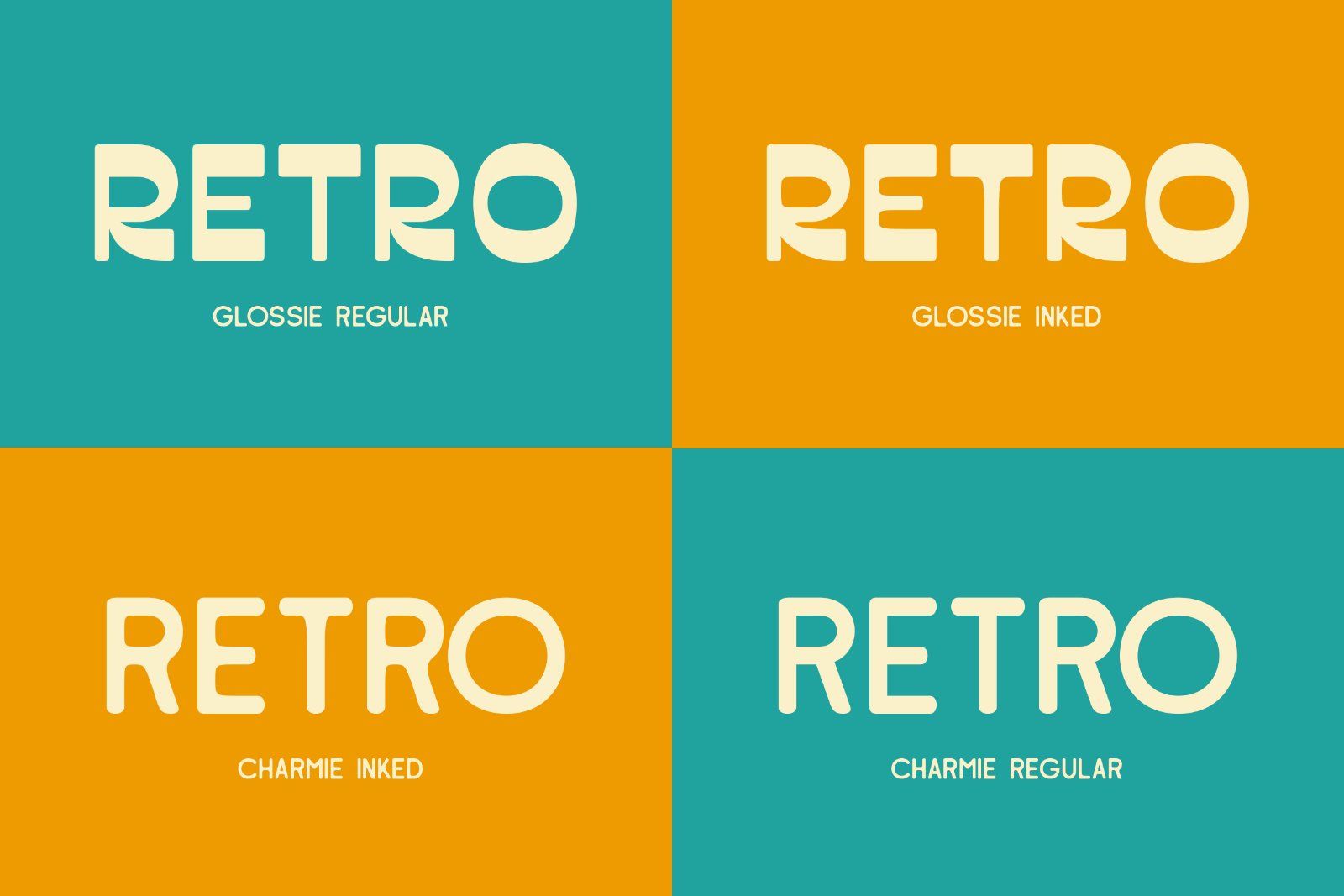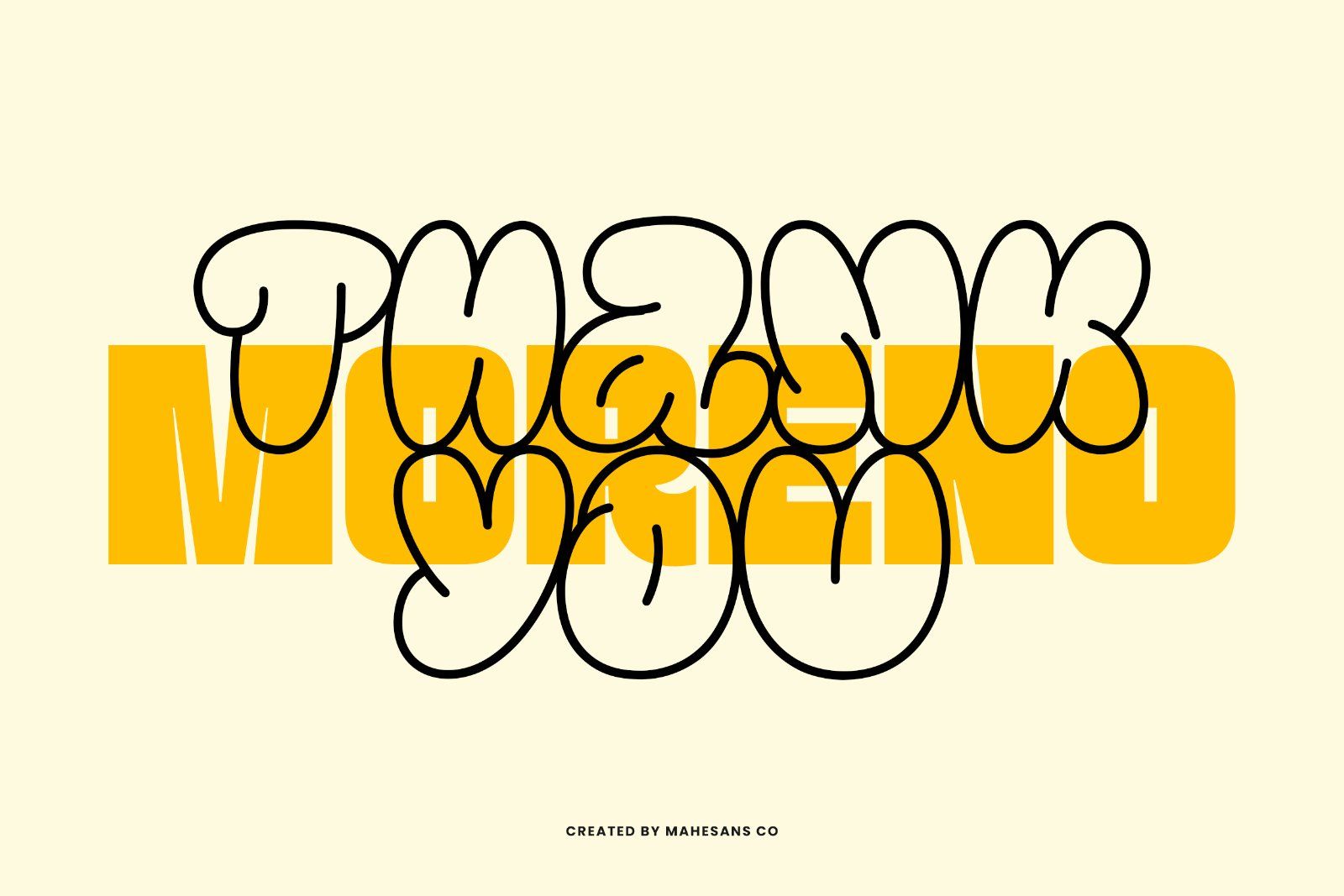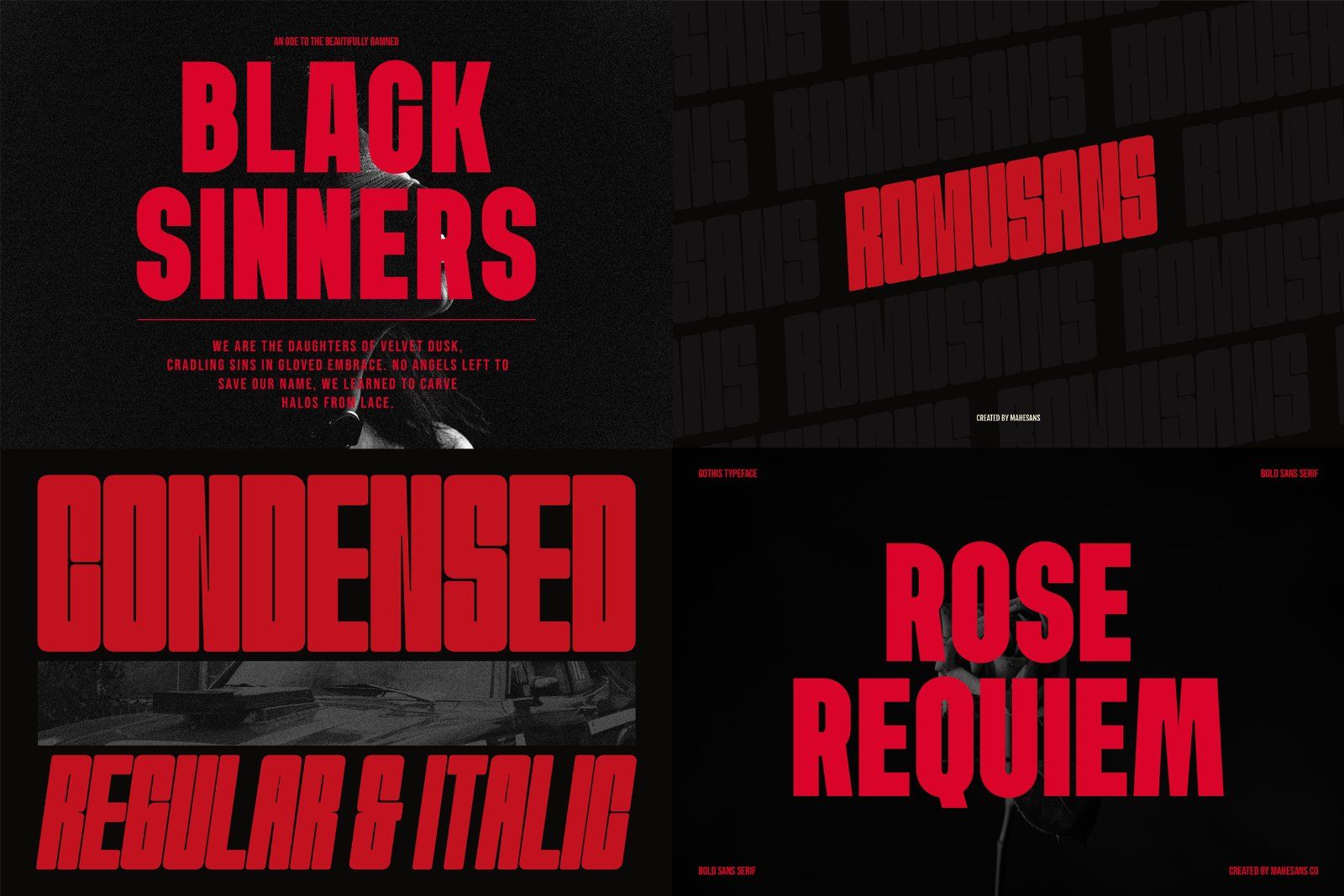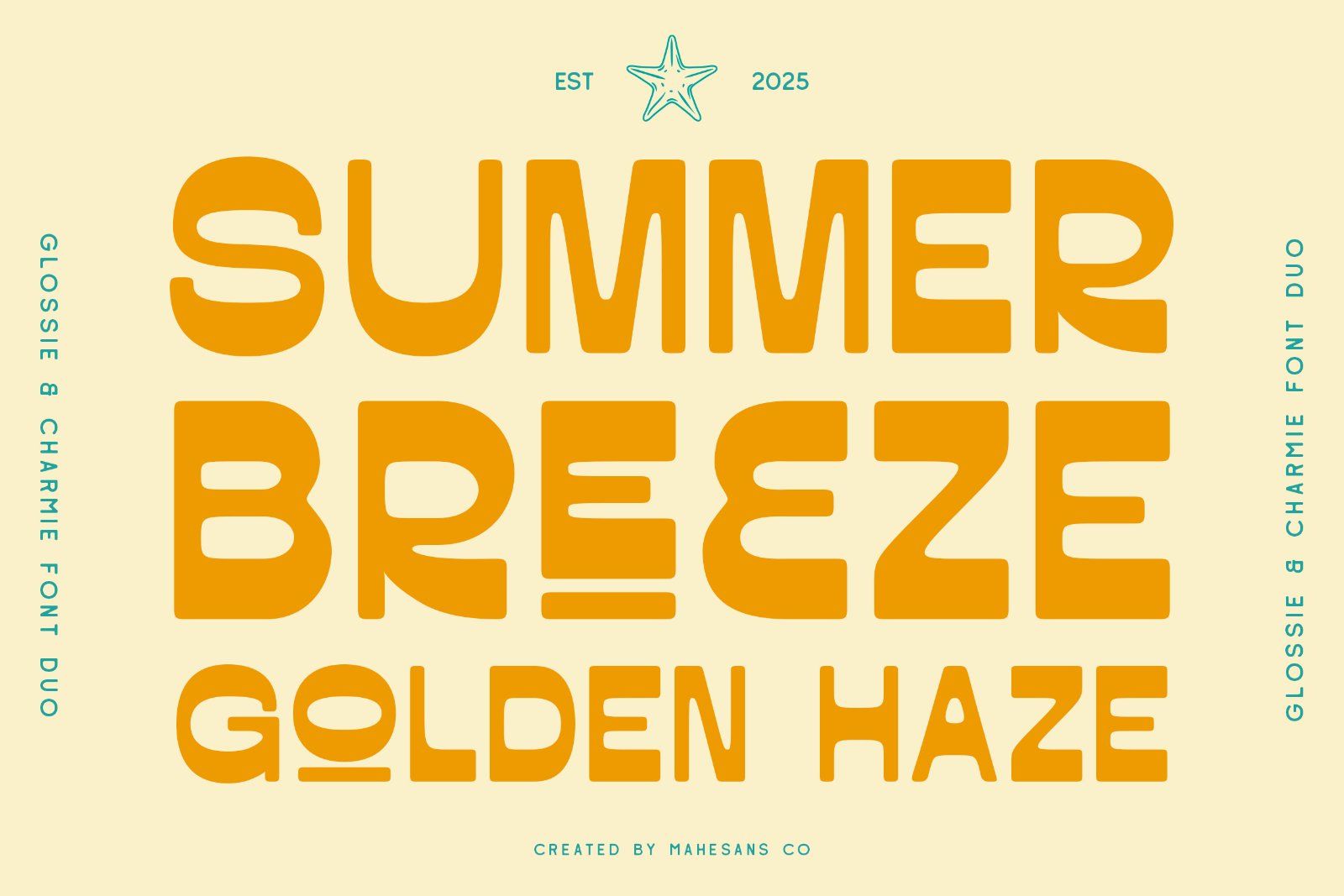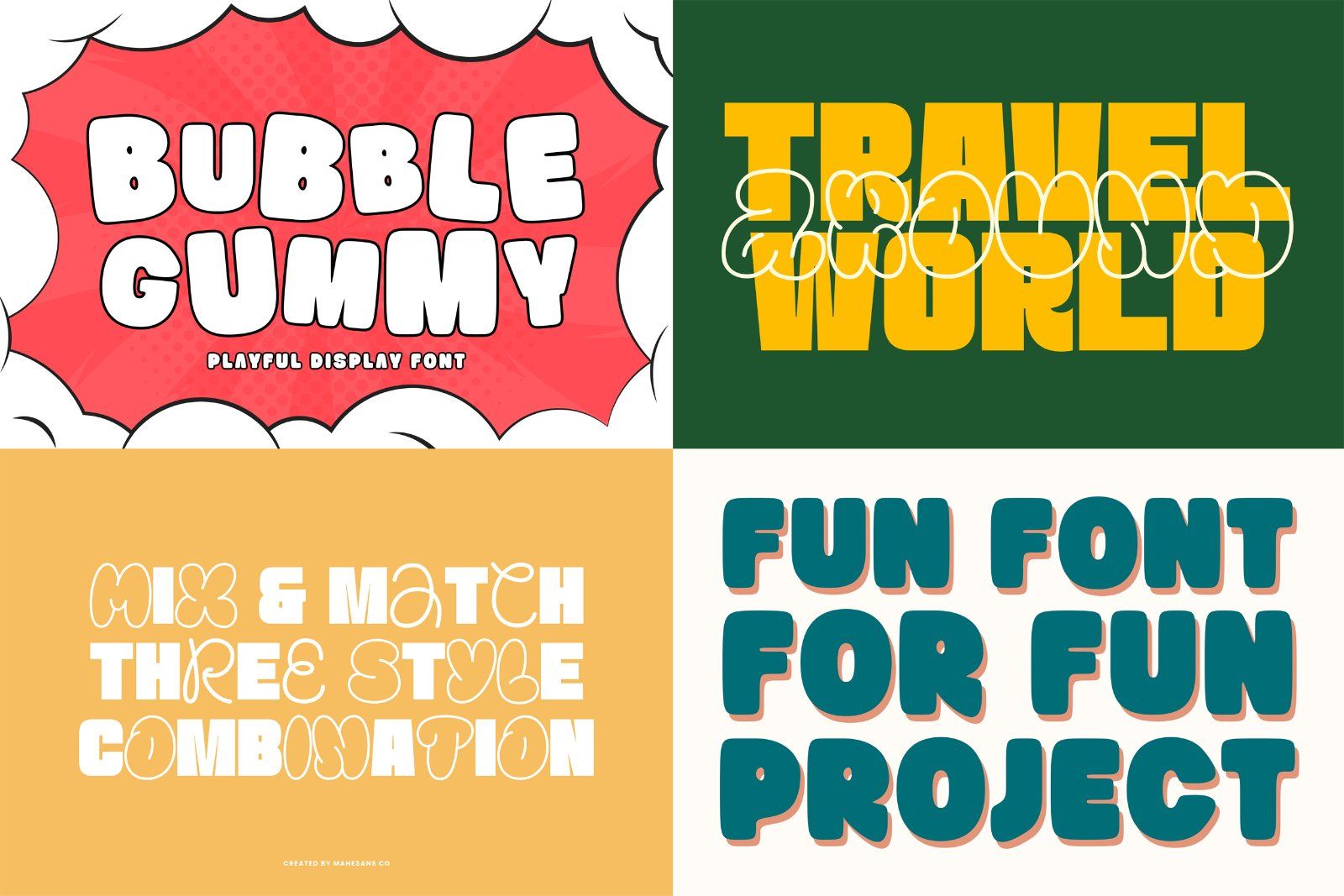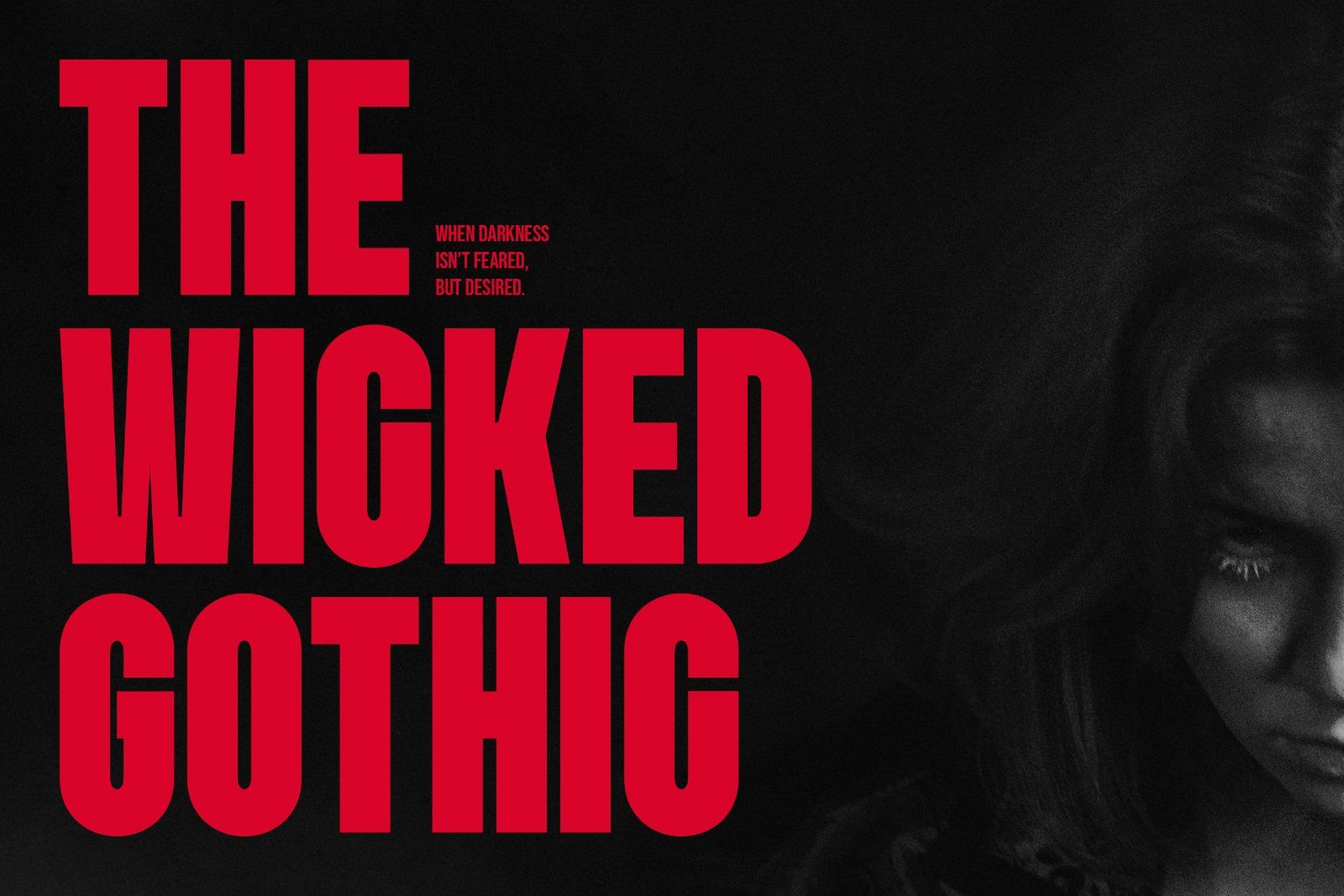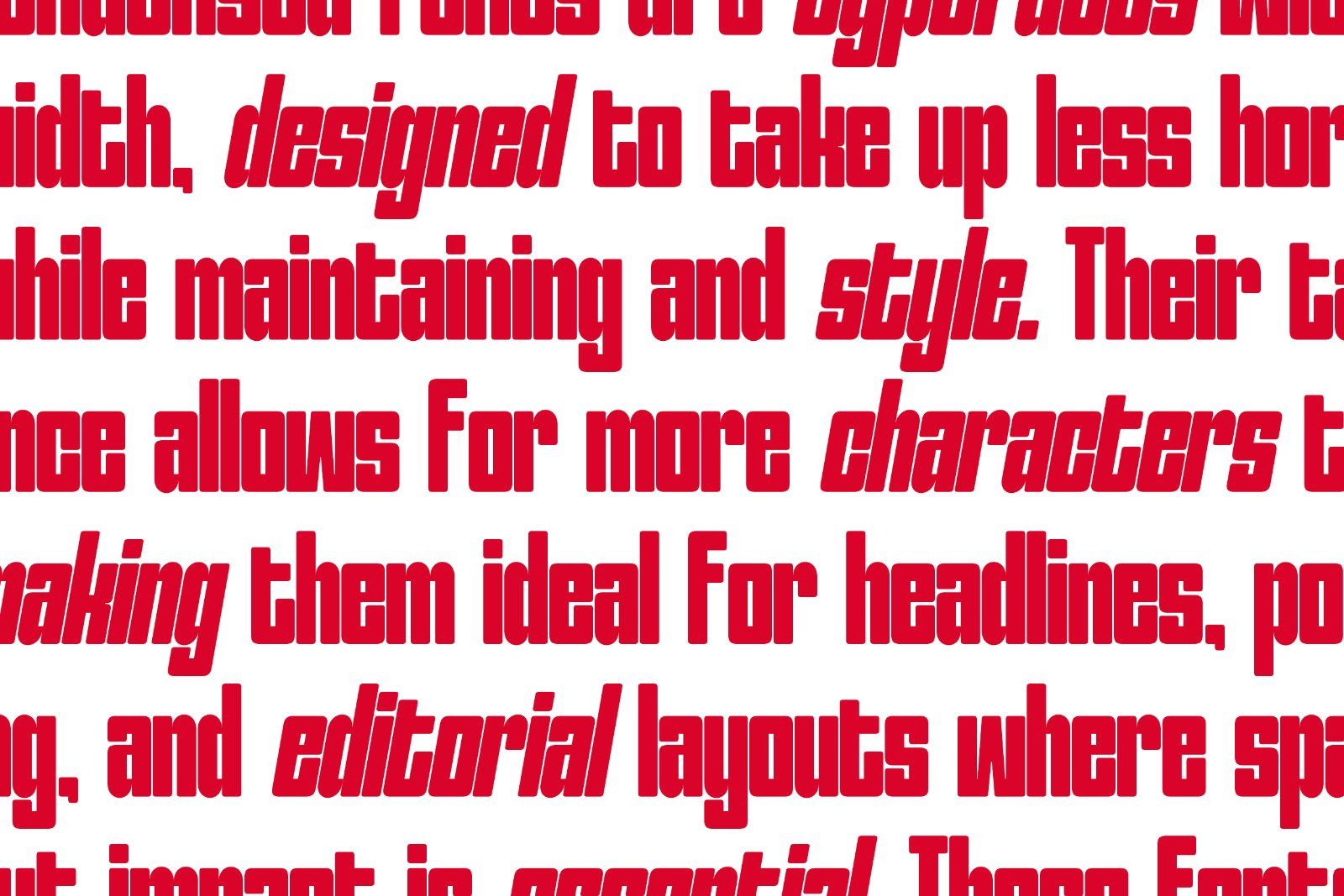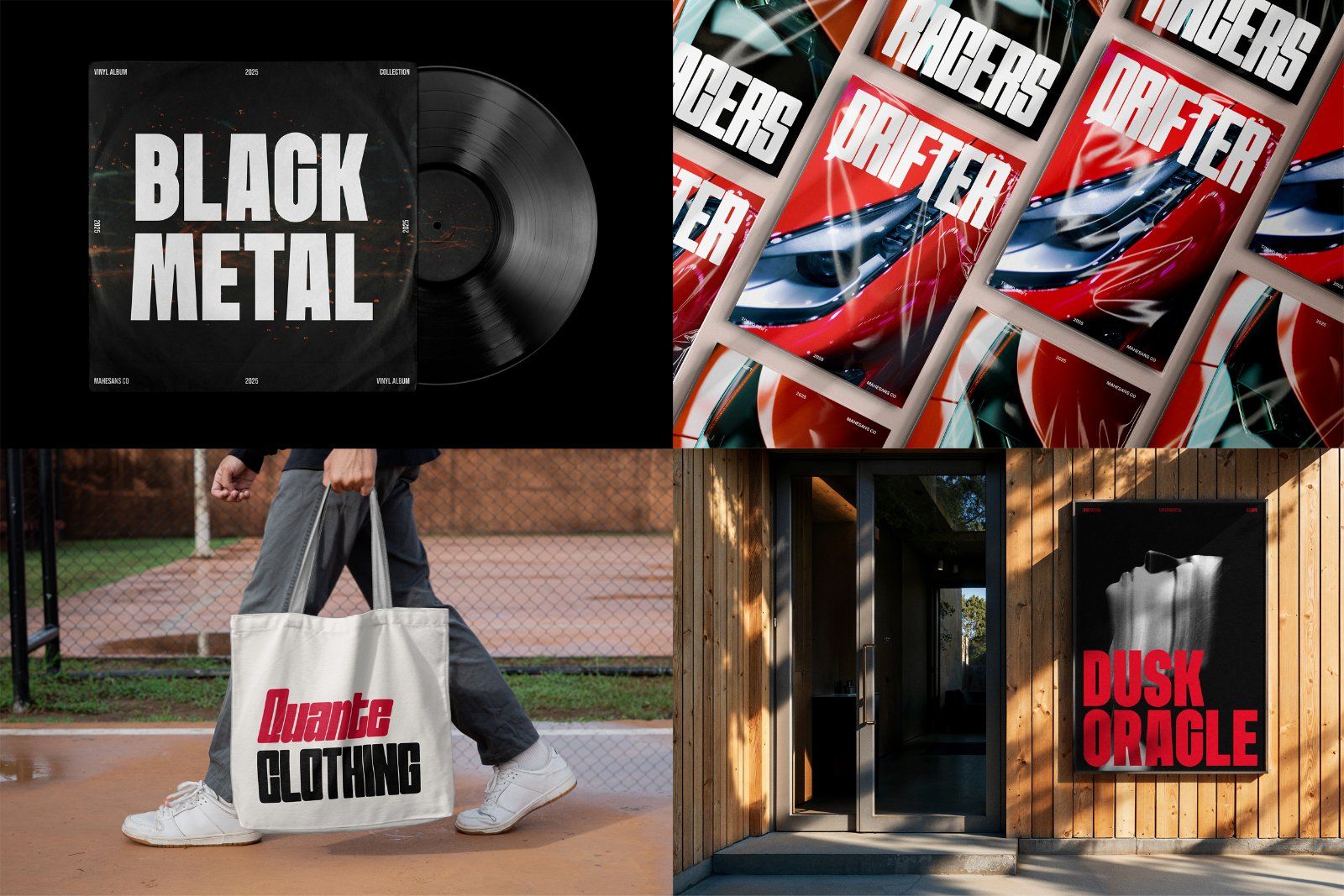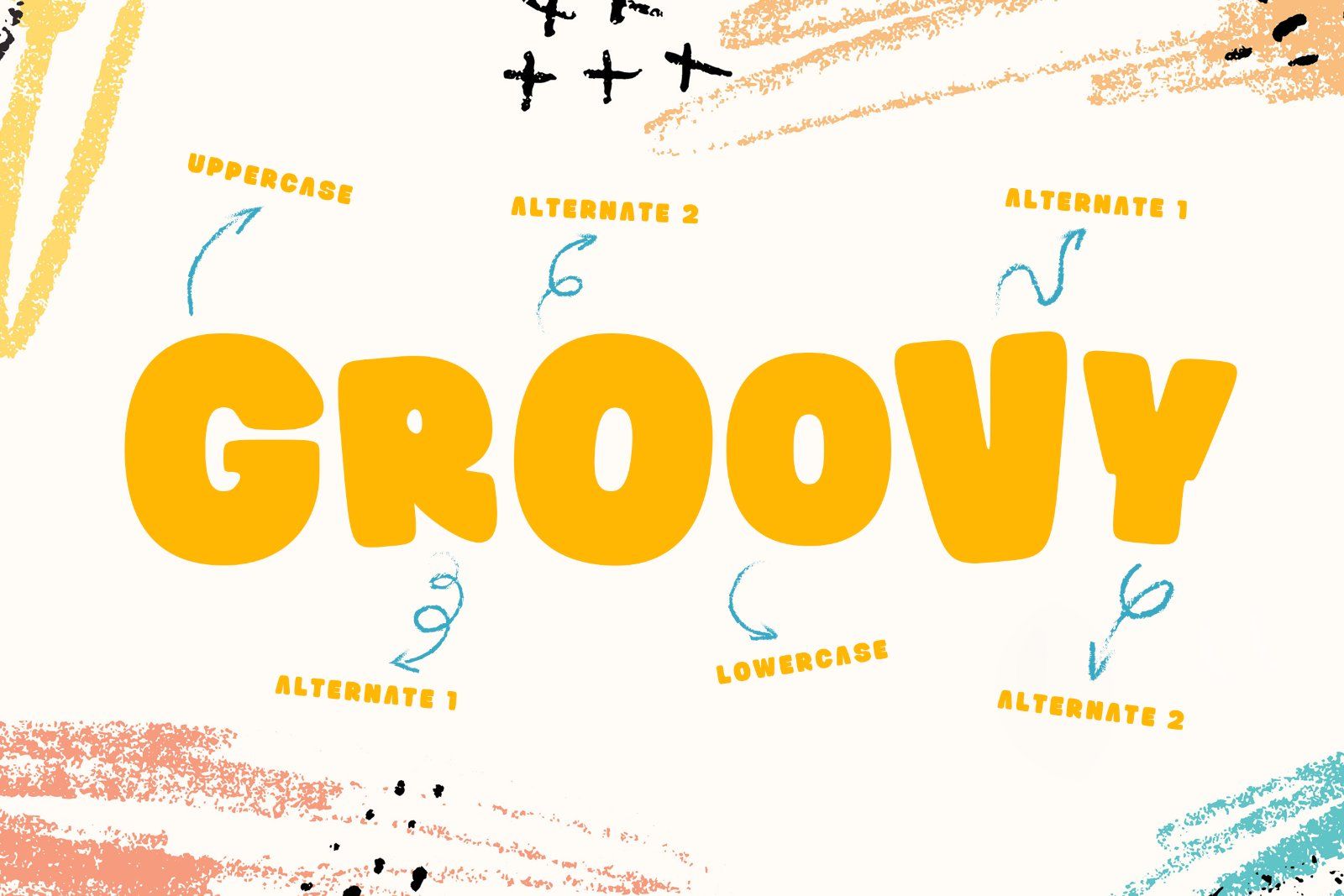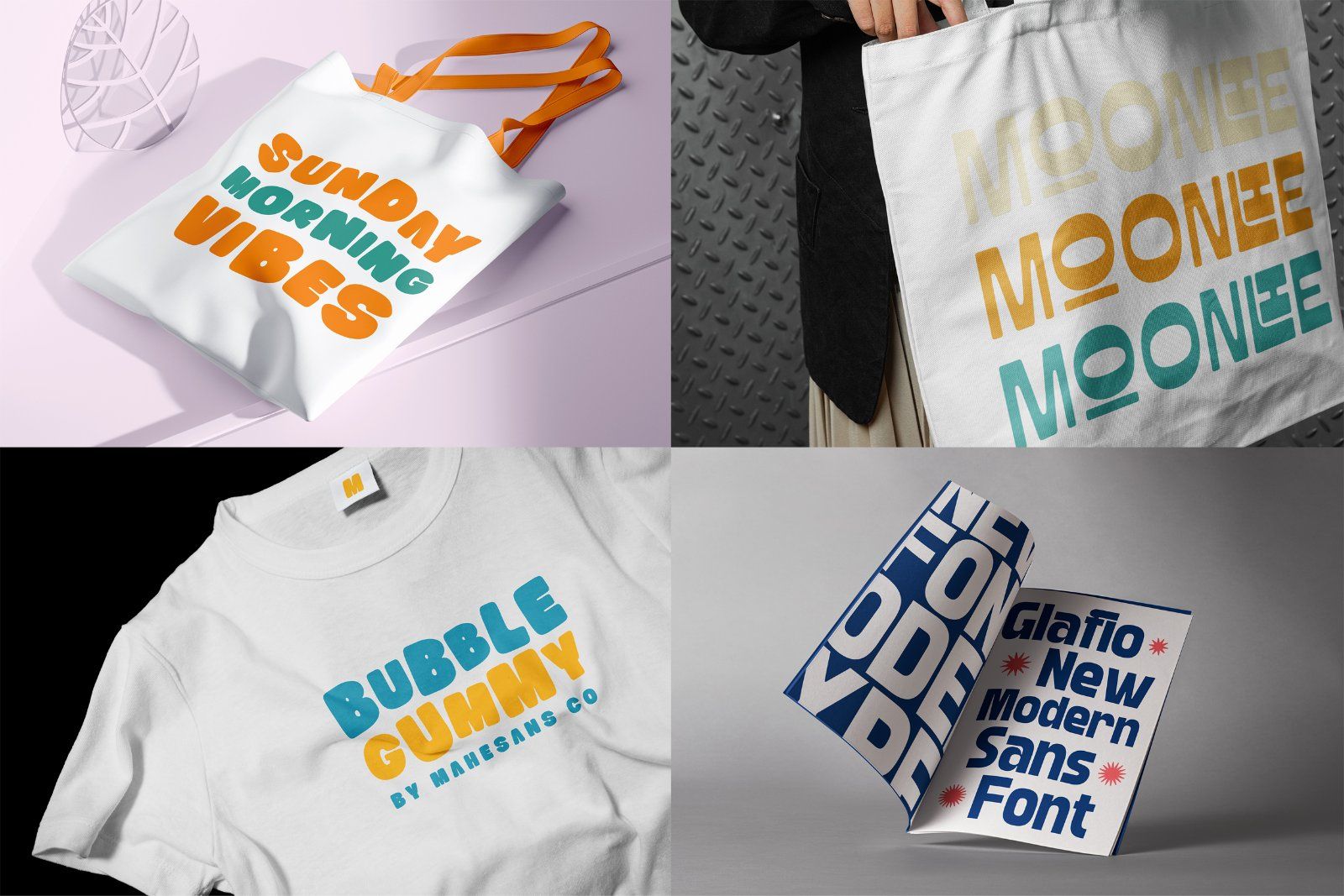
Level up your design projects with this Exclusive Sans Serif Fonts Bundle, carefully crafted for designers, creatives, and entrepreneurs. From bold and modern display fonts to playful and retro styles, this collection gives you the perfect balance of versatility and personality.
Inside this bundle, you’ll find a wide range of high-quality sans serif typefaces.
Fonts Included:
• Moreno
• Glafio
• Glossie & Charmie
• Gothis
• Romusans
• Quante Condensed
• Bubble Gummy
• Madbox
Whether you need something elegant and classy like Glossie & Charmie, fun and playful like Bubble Gummy, or strong and bold like Gothis and Romusans—this bundle has everything you need to make your typography stand out.